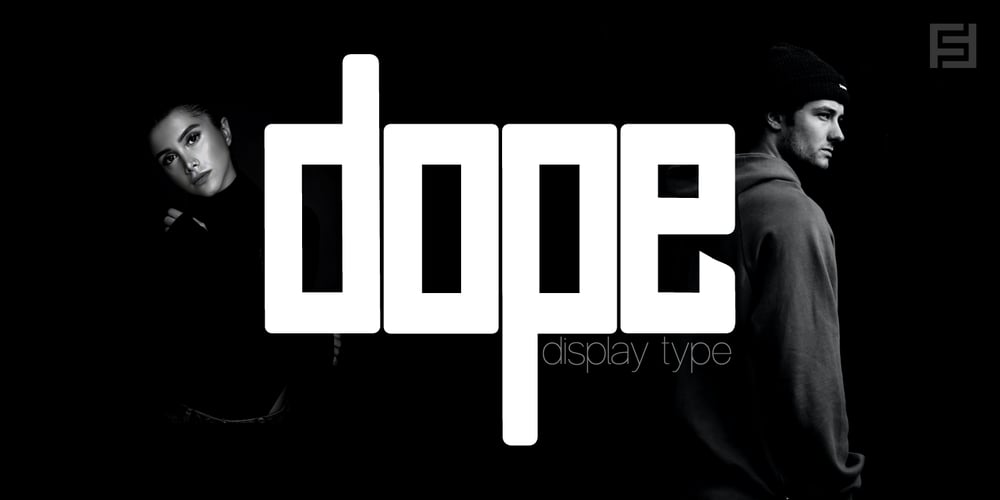
Dope Display
Dope Display font
Dope Display Font Family was designed by Lisha Joseph and published by Designova. Dope Display contains 6 styles and family package options. Dope is a unique typeface perfect for headlines, big text, branding, logotypes & display usage. This font can be an excellent choice for creating outstanding logos, promotional content, and marketing graphics that can bring uniqueness and freshness at its level best.The typeface will be perfect for creating unique monograms, logos, and identities with these combinations. Please see the examples shown above to get an idea of the capability of this typeface.The typeface comes with Extended Latin character sets including Western European, Central European, and South-Eastern European character sets (total of 281 glyphs).